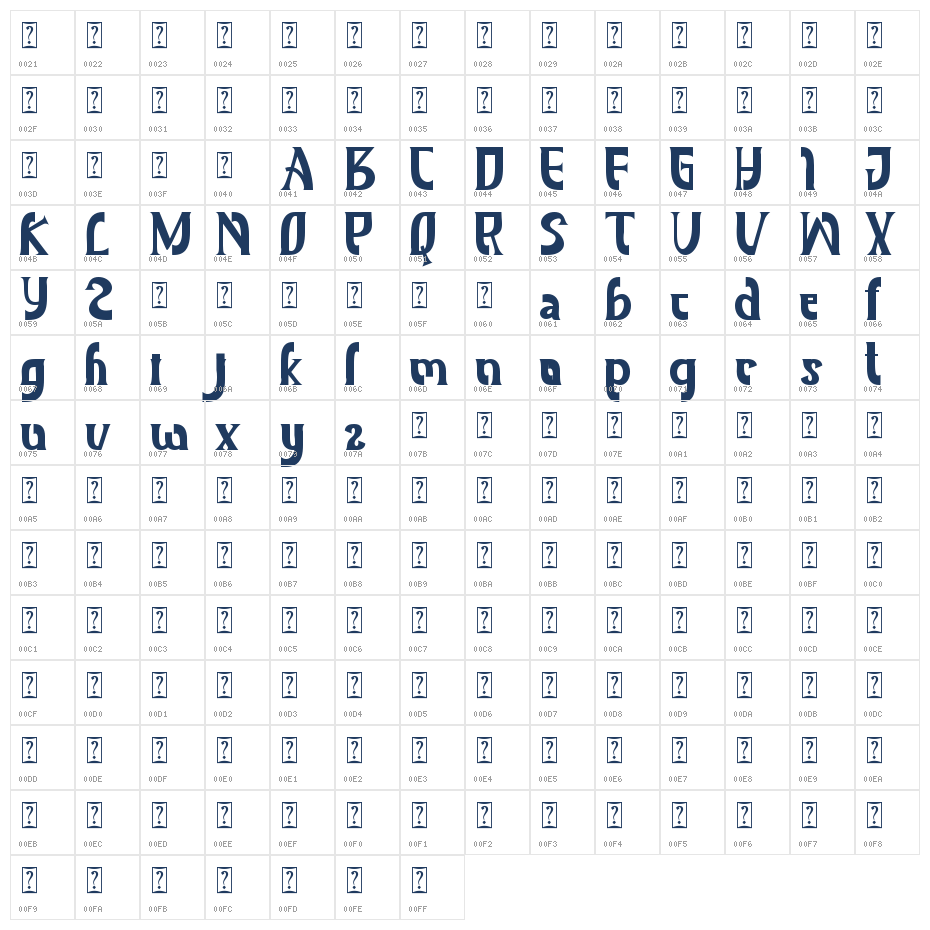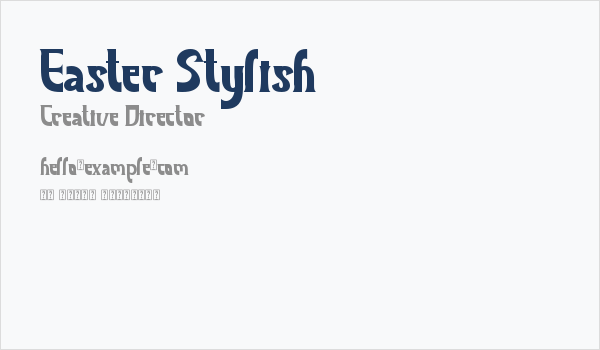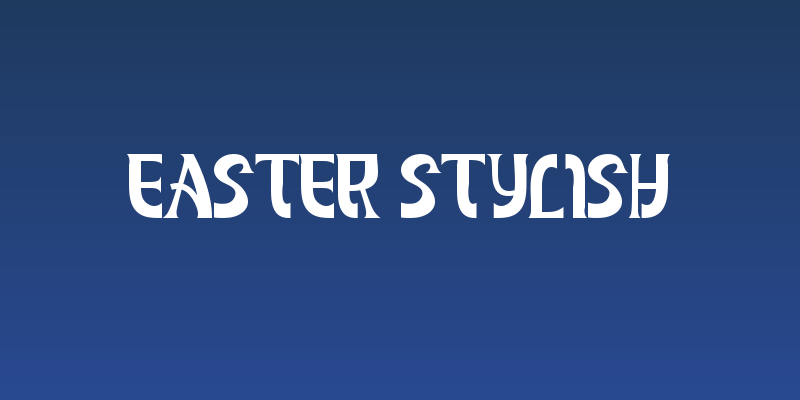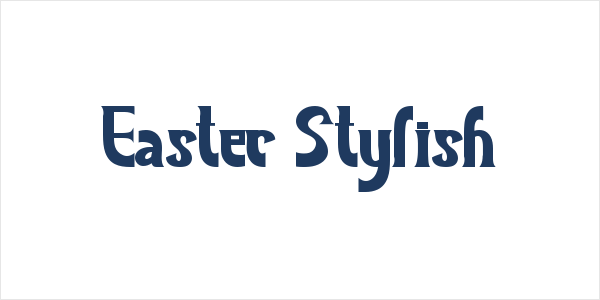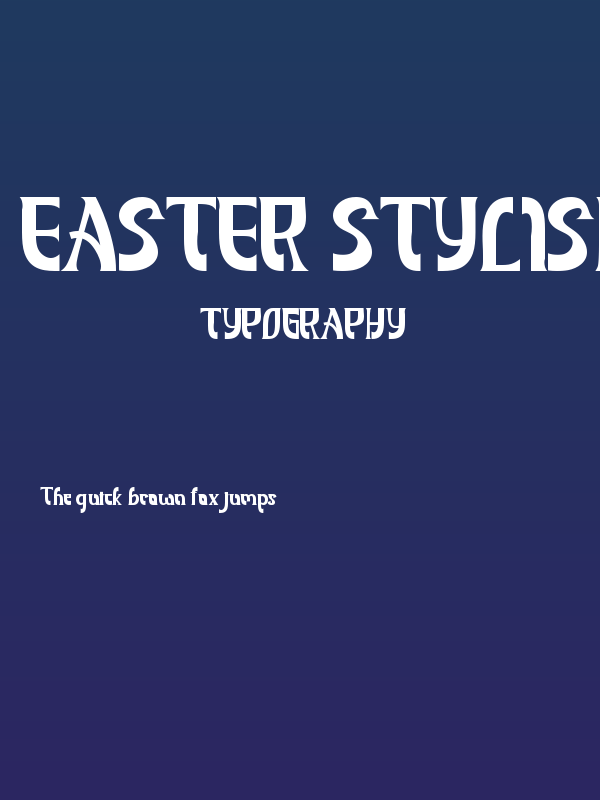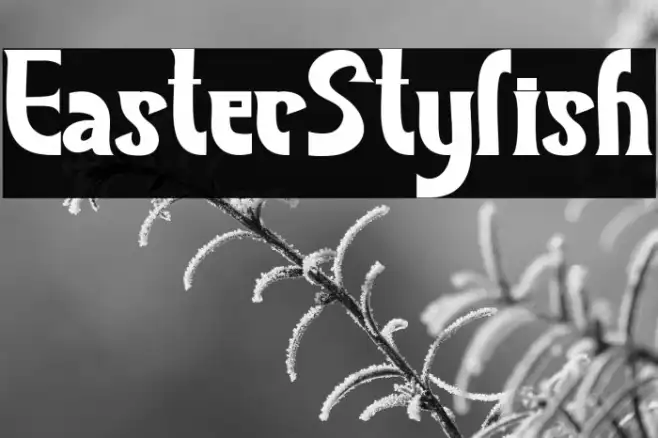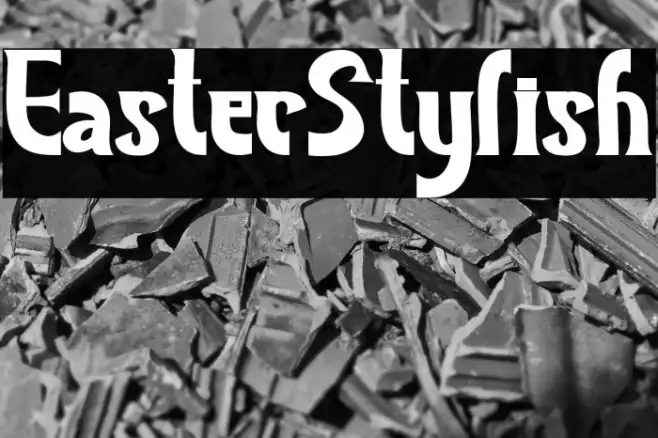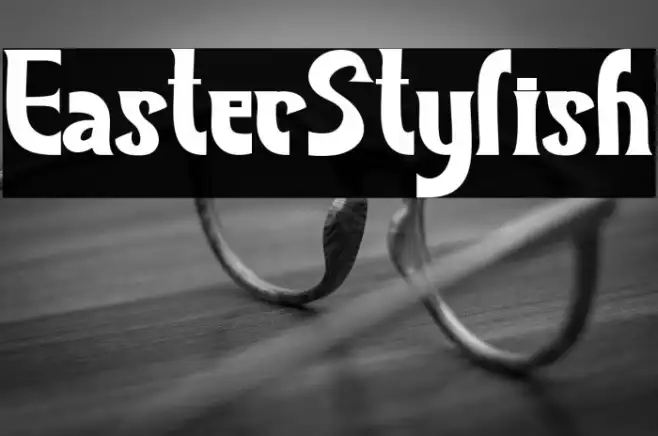
Easter Stylish Font
Easter Stylish Description
A decorative, stylized serif font with a vintage, ornate appearance, featuring sharp angles and unique character shapes.
Easter Stylish
| Overall Style | Vintage, Ornate, Decorative |